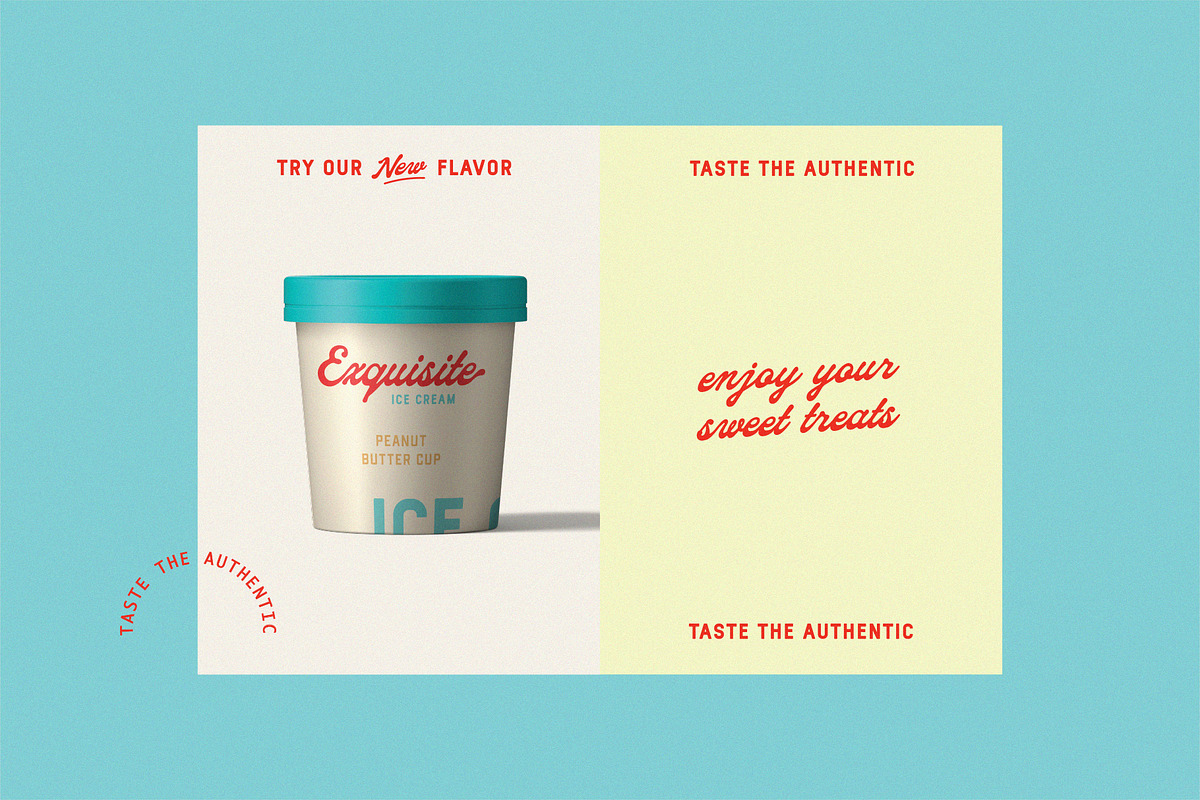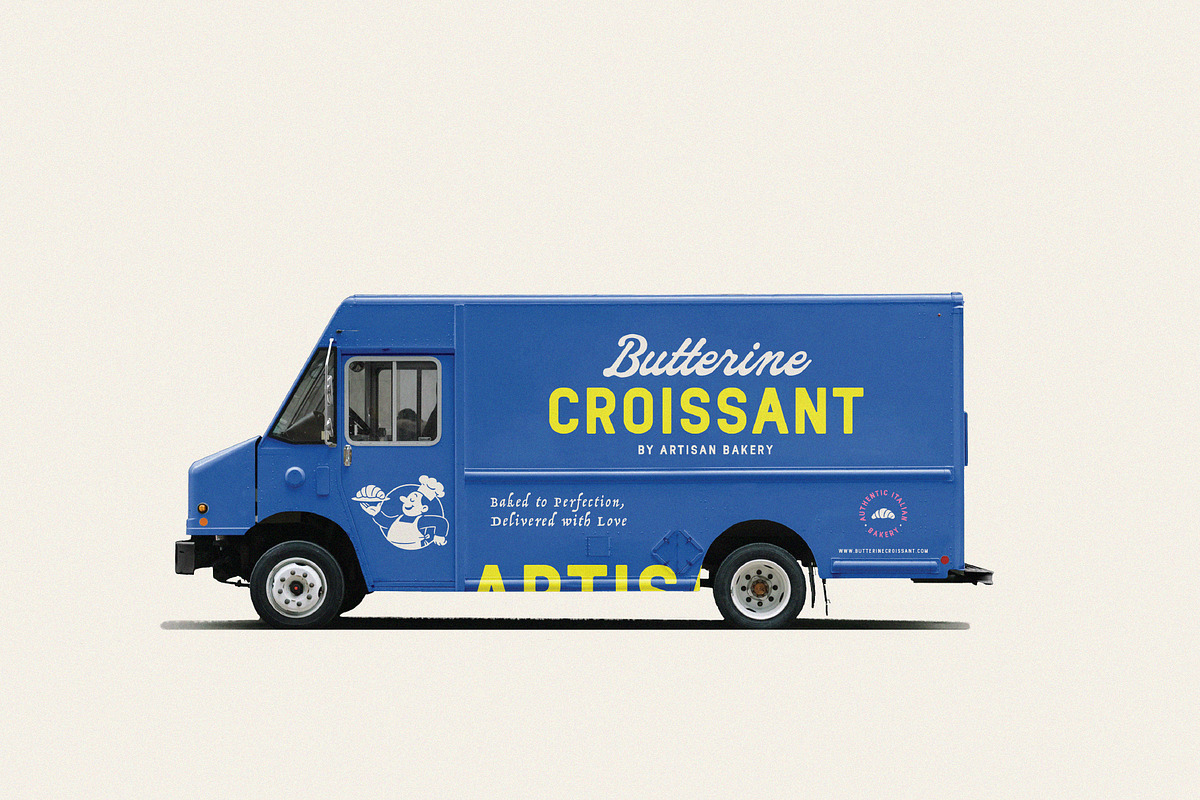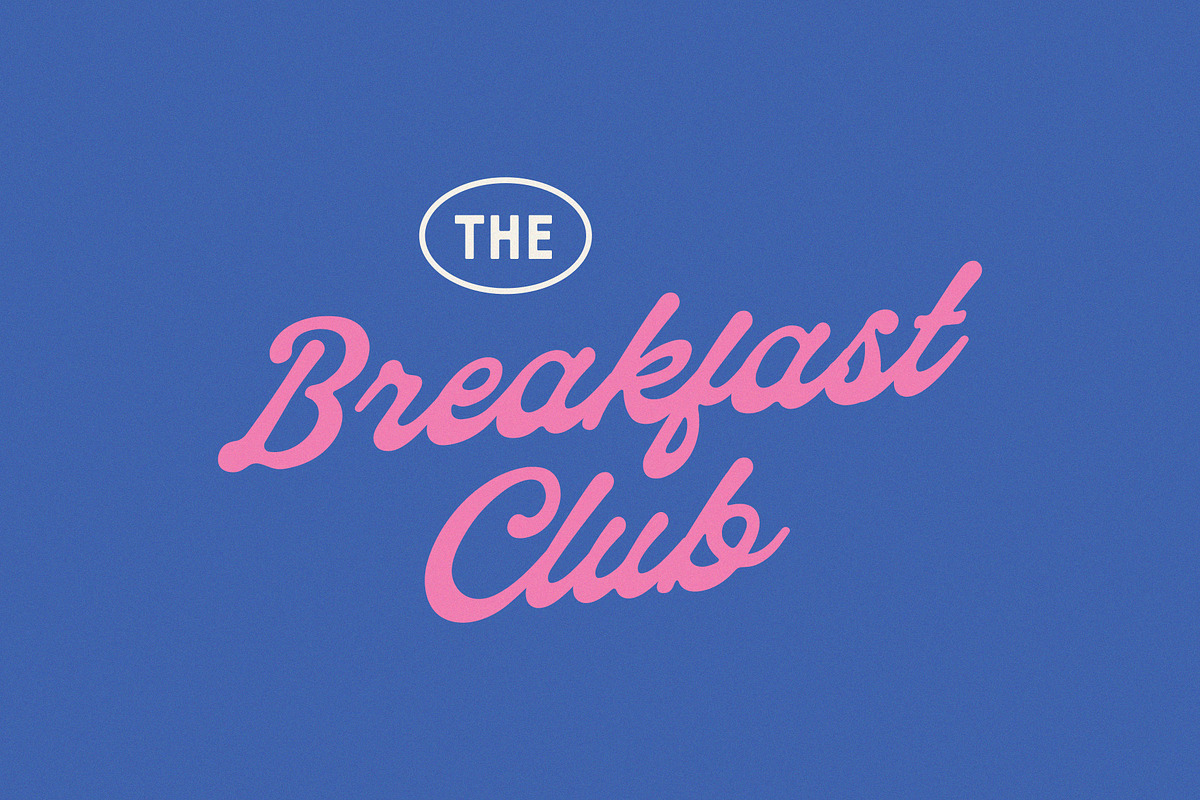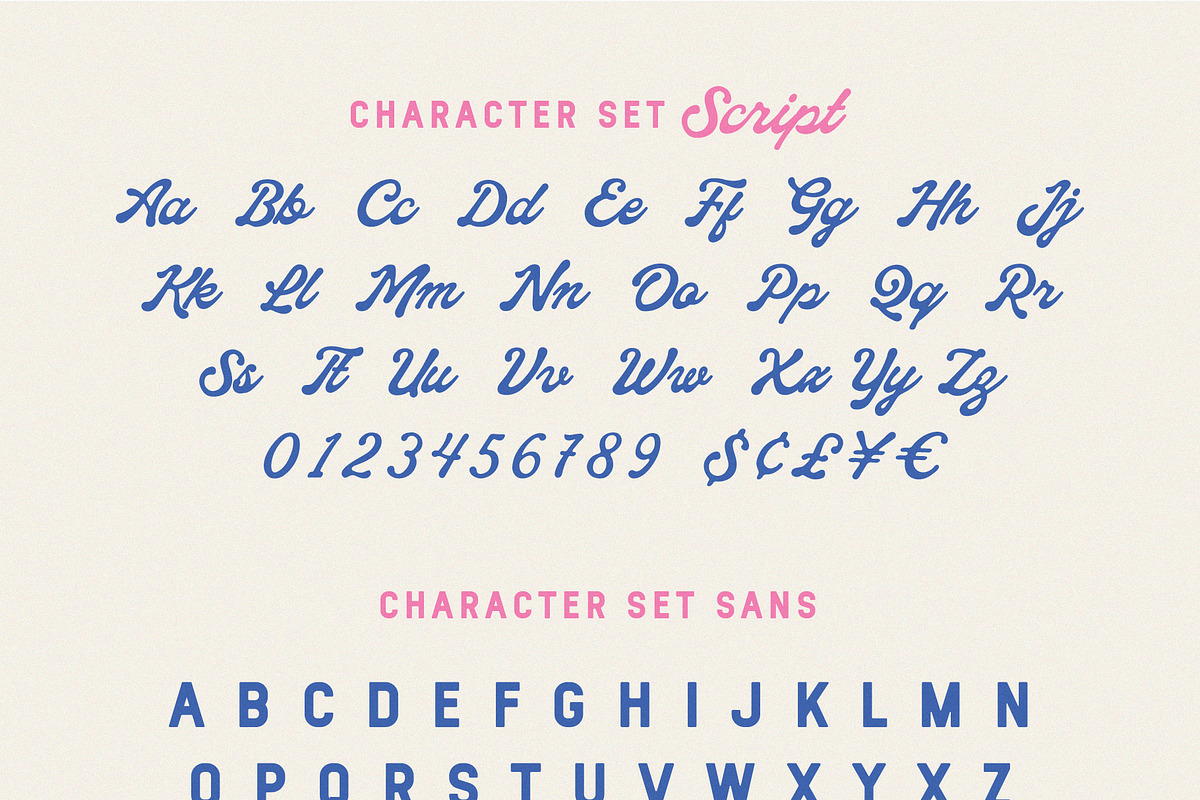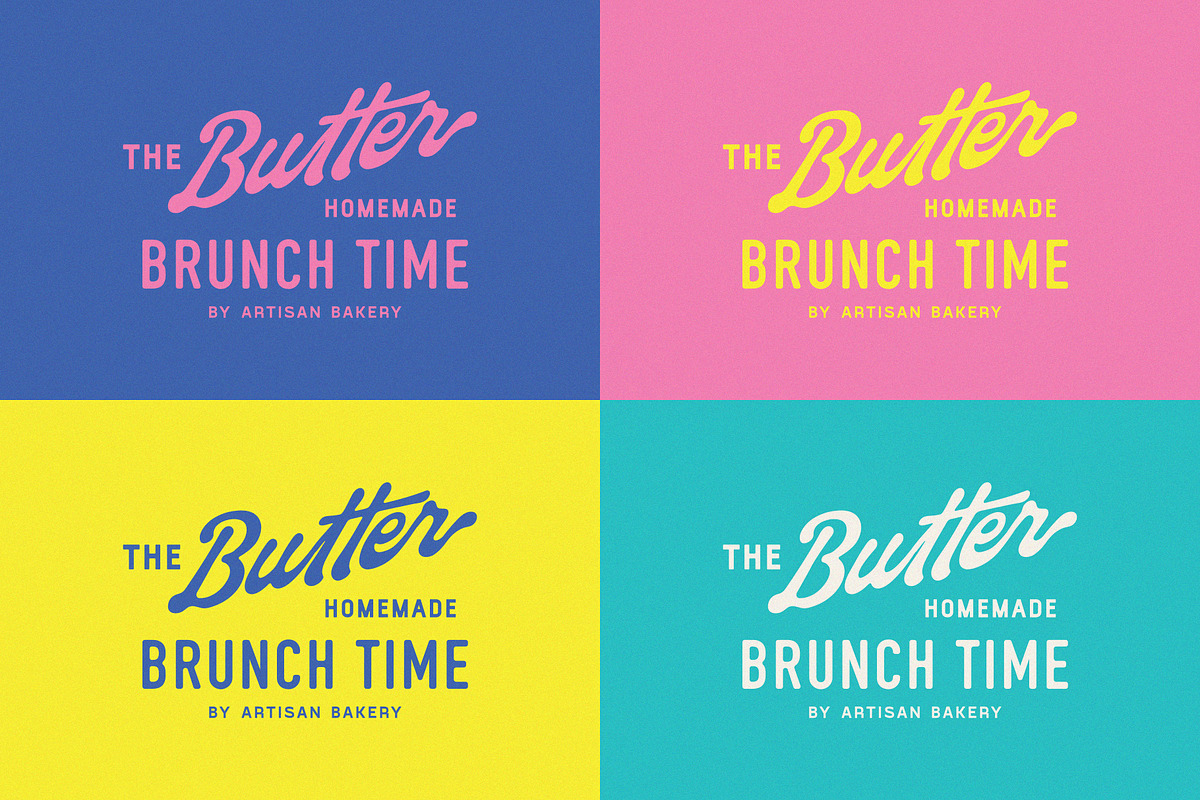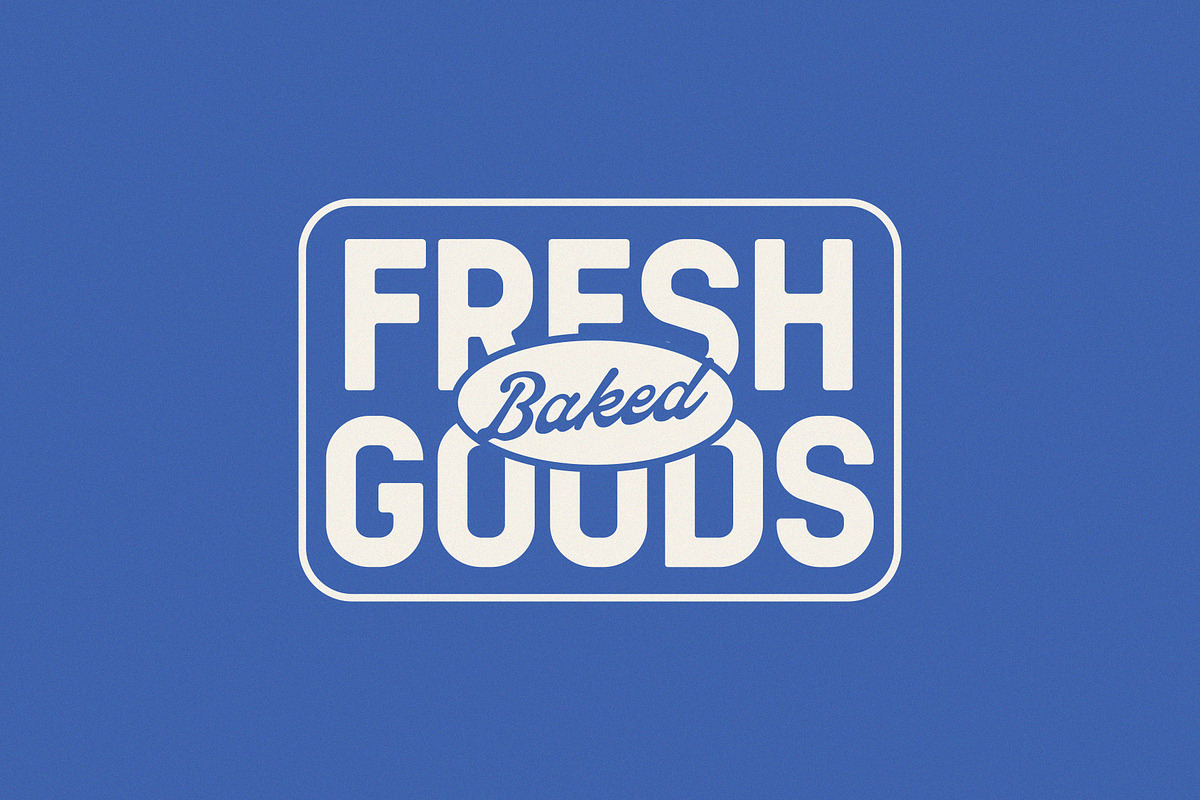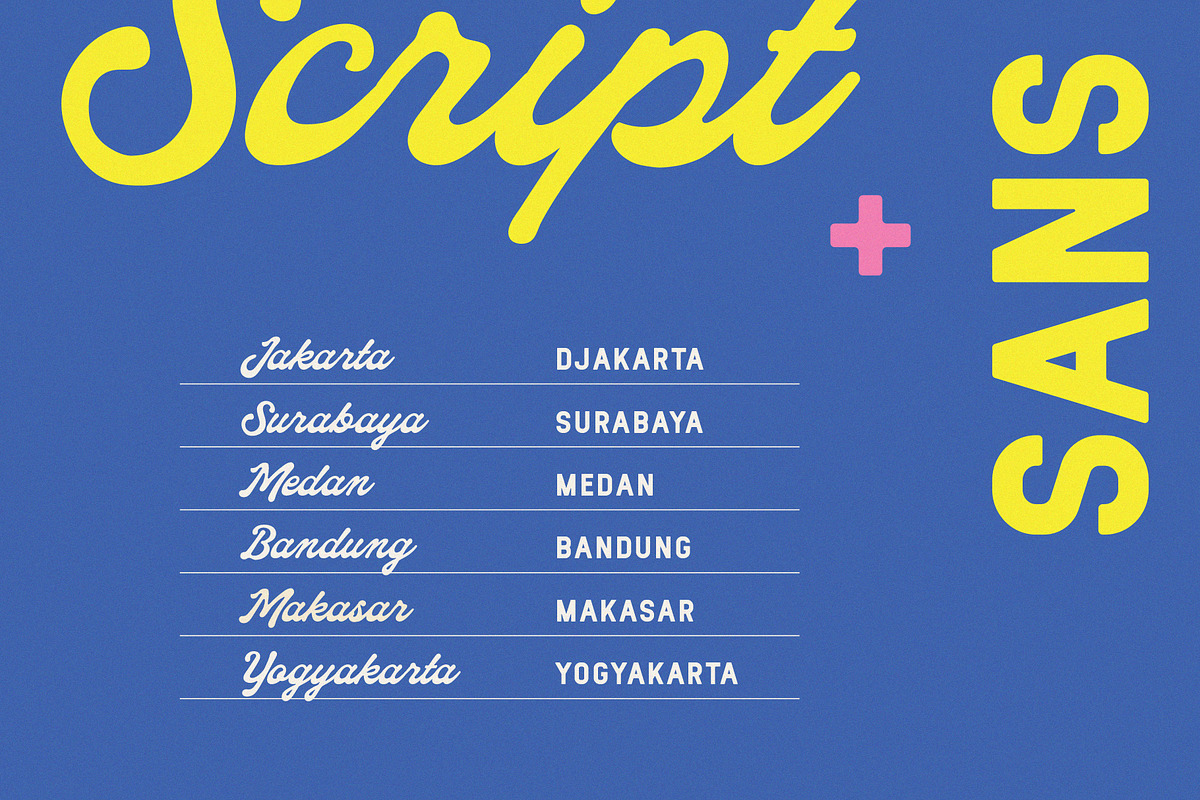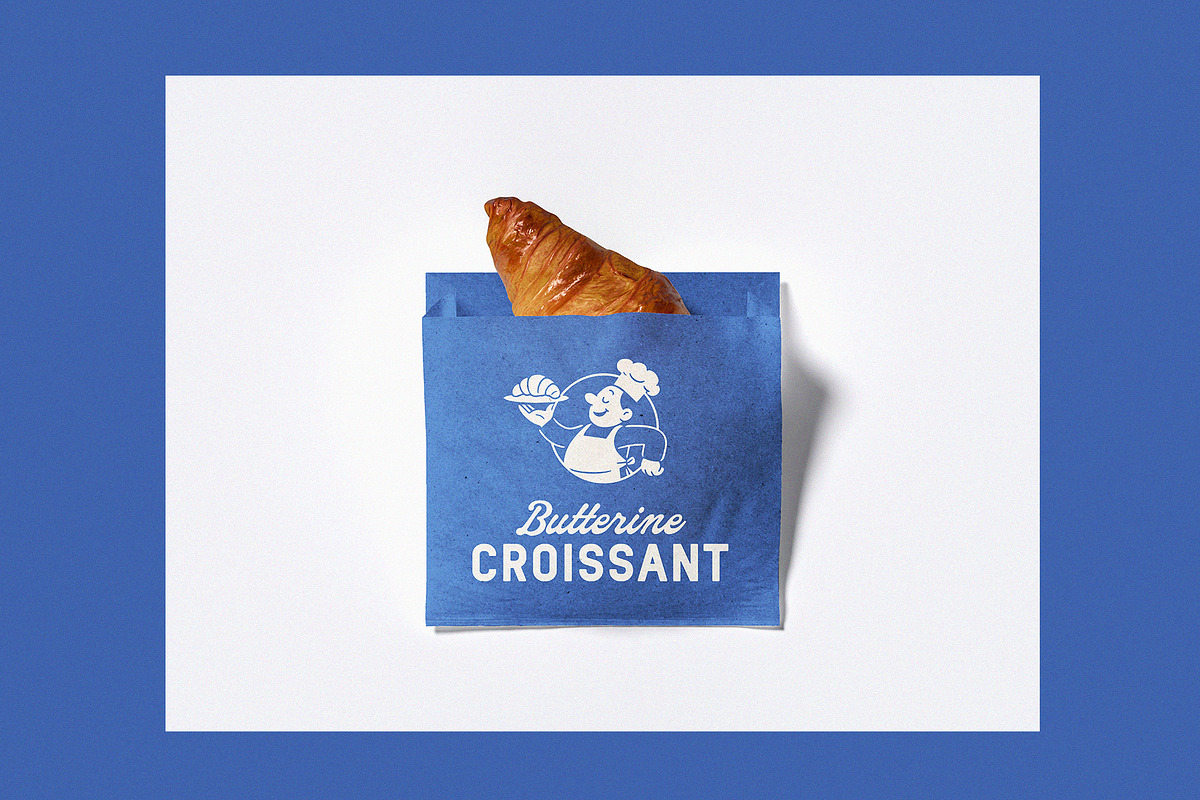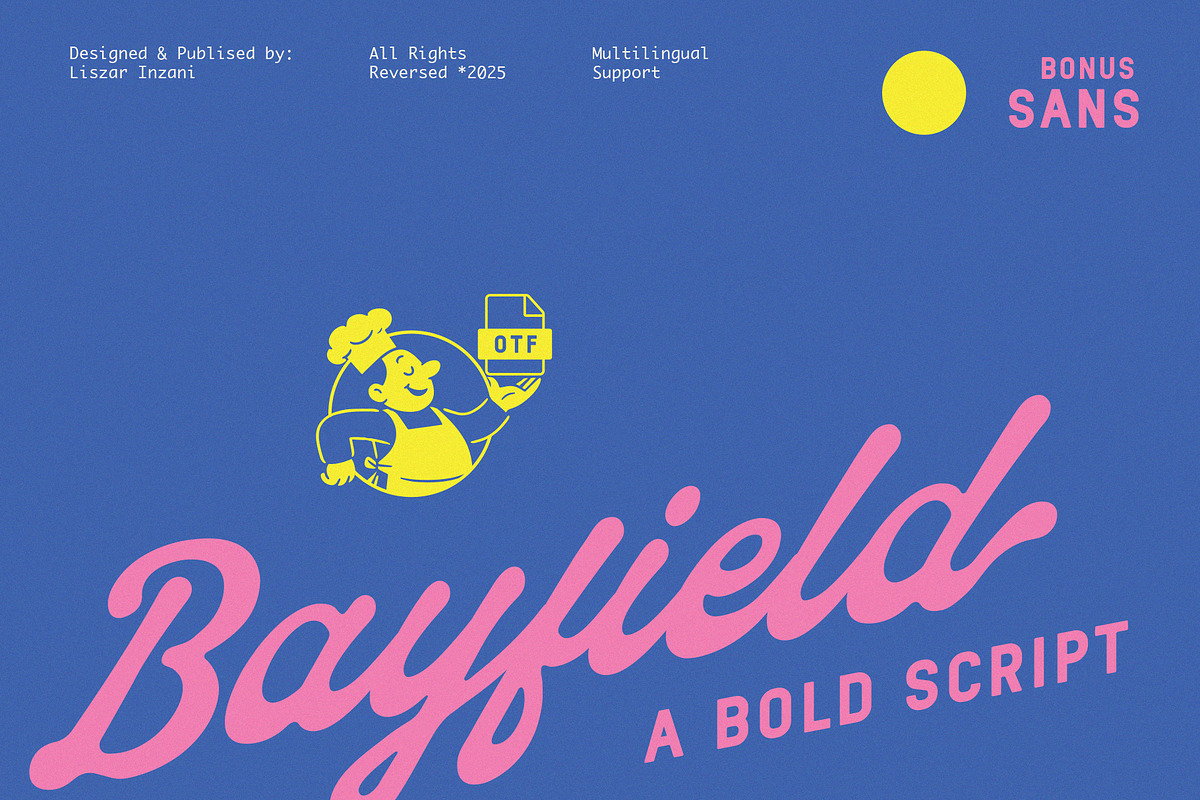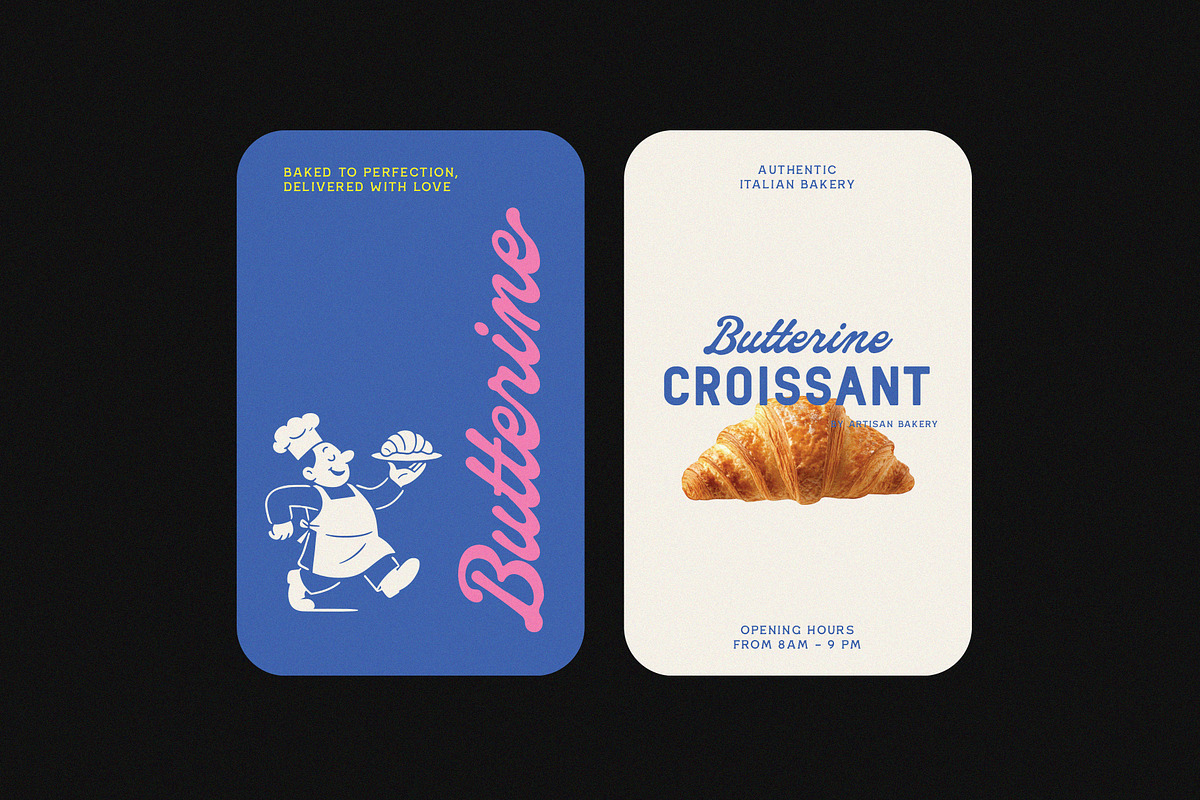
BAYFIELD: Bold Script + Sans Serif
Bayfield is a fun and bold script font with a playful twist. Designed to bring joy into your projects, it combines a smooth script style with a clean sans serif for the perfect pair. Great for logos, packaging, posters, and anything that needs a cheerful retro touch.